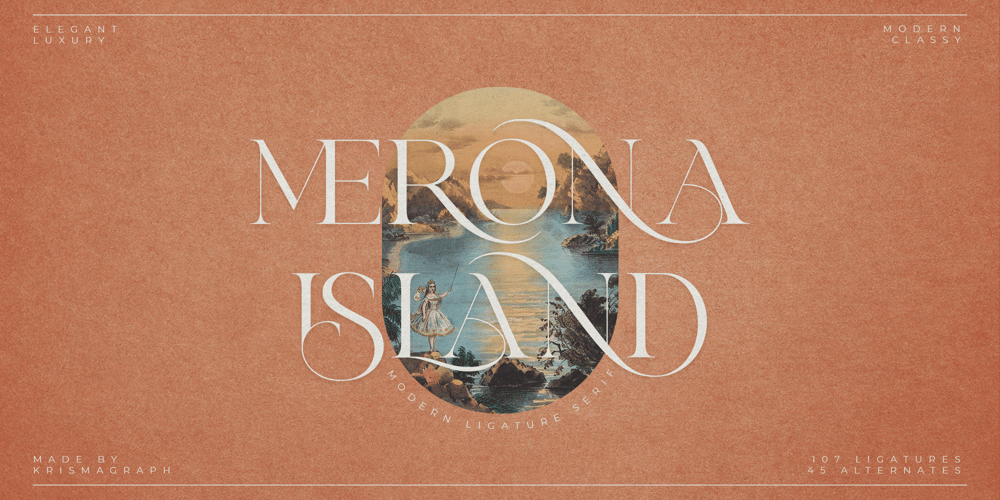
Merona Island Font Family was designed by Ratna Krismawati and published by Krismagraph. Merona Island contains 1 styles and family package options. Merona Island is a Modern Ligature Serif Font. Its soft curves mixed with high contrast glyphs, give it a feminine and masculine quality. It comes with 107 unique ligatures and 45 alternates. Great in layout design for quotes or body copy, best used as a display for headings, logos, branding, magazines, product packaging, and invitations.Accessible in Adobe Illustrator, Adobe Photoshop, Adobe InDesign, and even work on Microsoft Word. PUA Encoded Characters – Fully accessible without additional design software. Fonts include multilingual support.Image used: All photographs/pictures/vectors used in the preview are not included, they are intended for illustration only.Feel free to follow, like, and share. Thanks so much for checking out my shop!